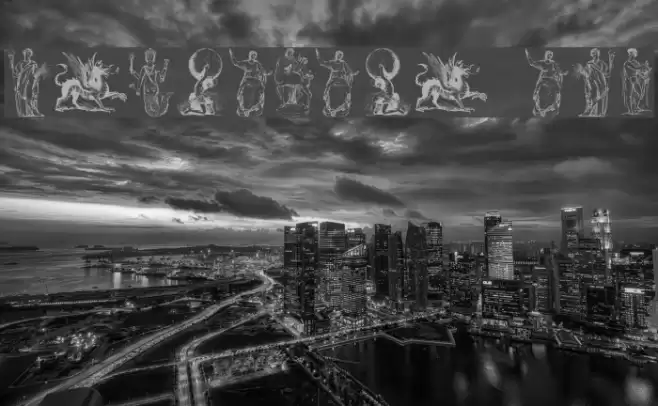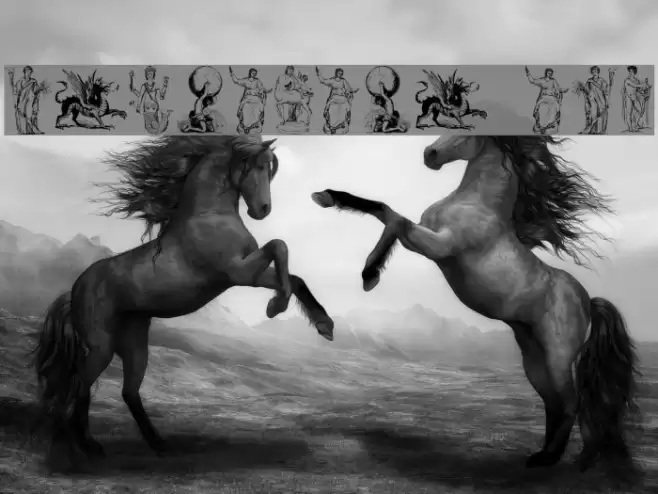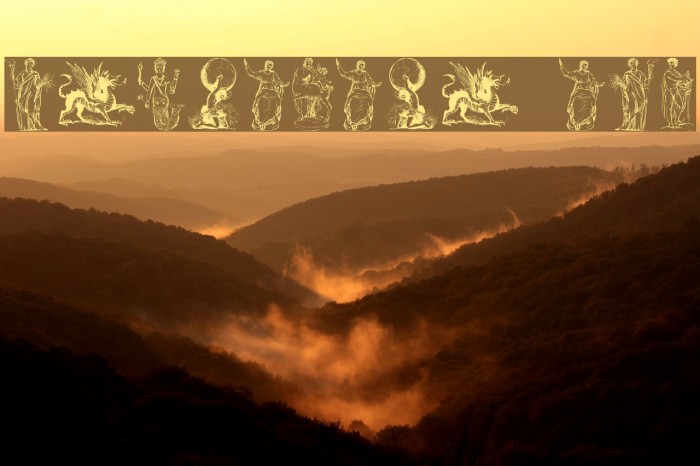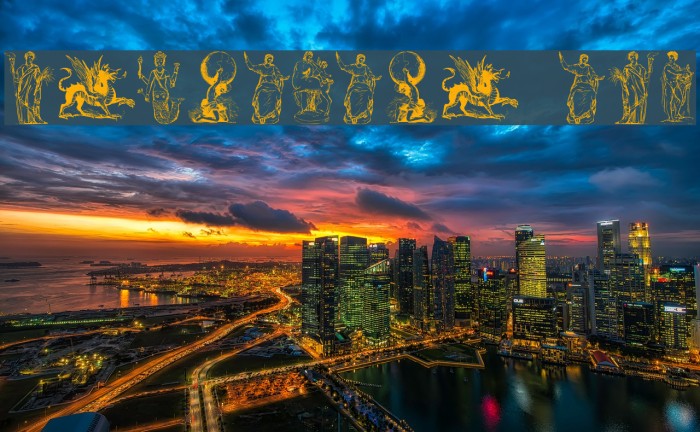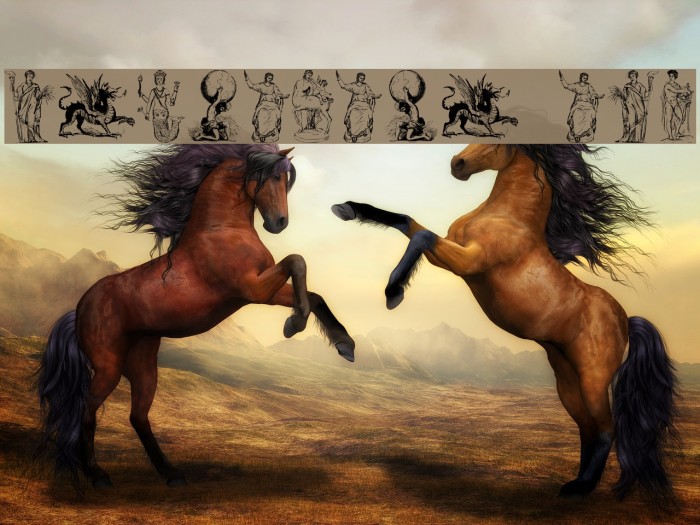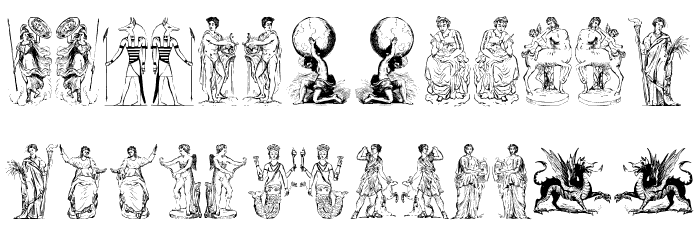
mythology one Font
mythology one Description
A decorative display font featuring detailed black-and-white illustrations of mythological figures and creatures in place of standard alphanumeric characters, evoking classical art and ancient mythology.
Illustrative font with mythological figures as glyphs from Dingbats fonts.
- Proposed Projects: Book covers, posters, educational materials, themed event invitations, museum signage.
- Overall Style: Decorative, Vintage, Classical
- Use Case: Logos, Posters, Themed Headlines, Artistic Projects